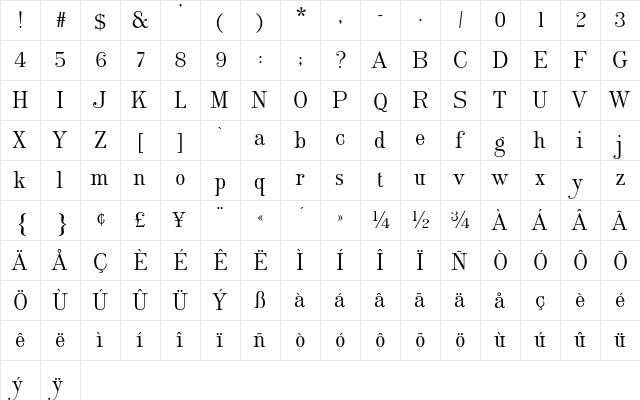
Burin Roman AT Regular
Design Context for Burin Roman AT Typeface
Burin Roman AT is a composed and adaptable typeface that performs quietly and consistently across a wide range of design contexts.